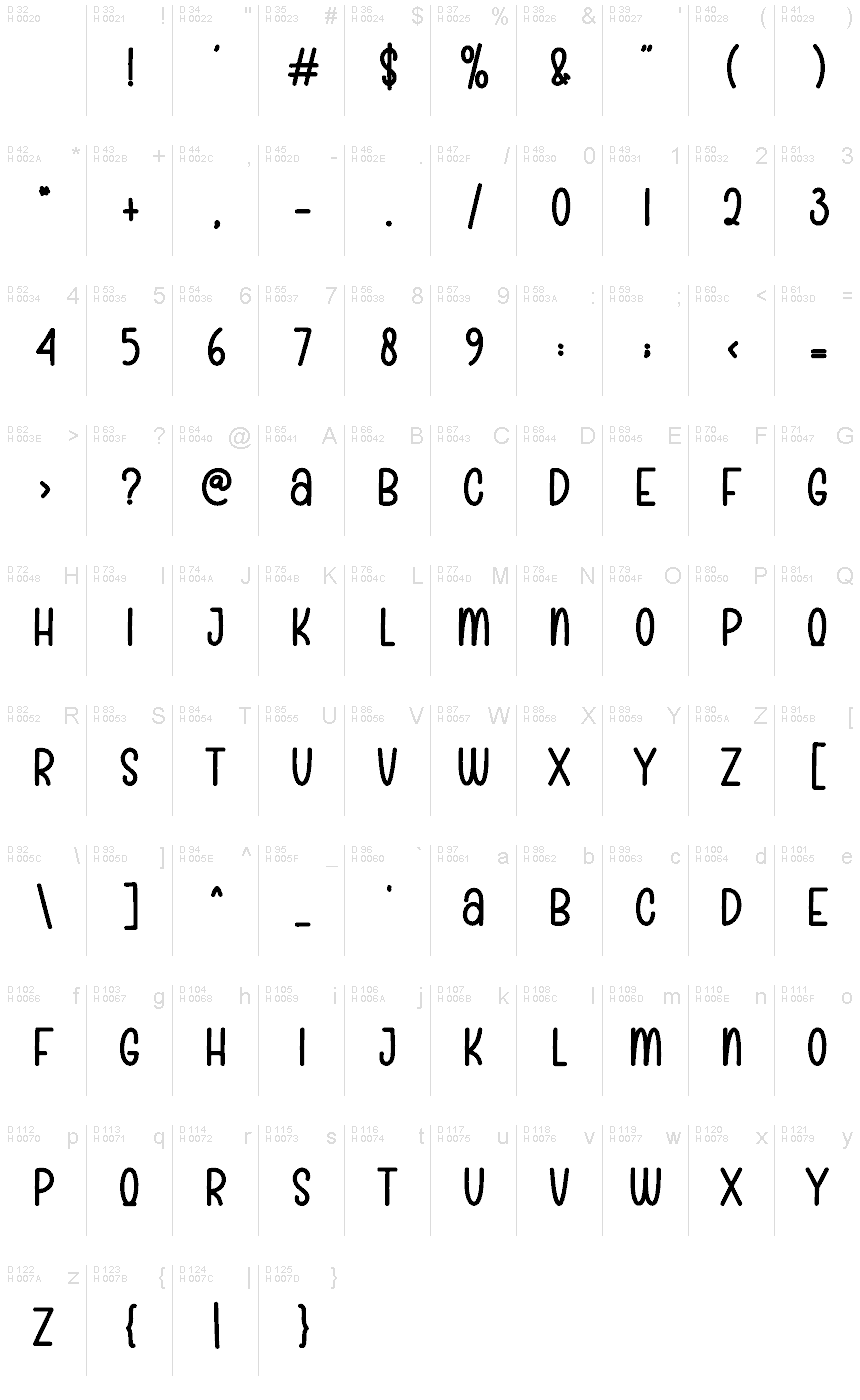
Coconut Water
Coconut Water font by Andi Moz is a casual, relaxed, and approachable handwritten condensed font which distinguishes itself by its cheerful character. The free handwritten font combines a subtle modern flair with an organic feel that feels lively without being too extravagant. Let Coconut Water give any personal or professional designs the added value they need without feeling the least bit overwhelming.
It can be used to add a touch of personality to T-shirts, children’s books covers, invitations, special quotes for social media posts, and e-cards. It can also be applied to branding projects where name tags are designed as well as on many other print ideas like posters and packaging projects where many attentions turn around.